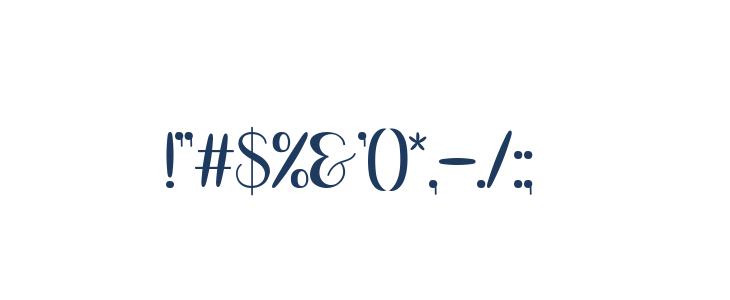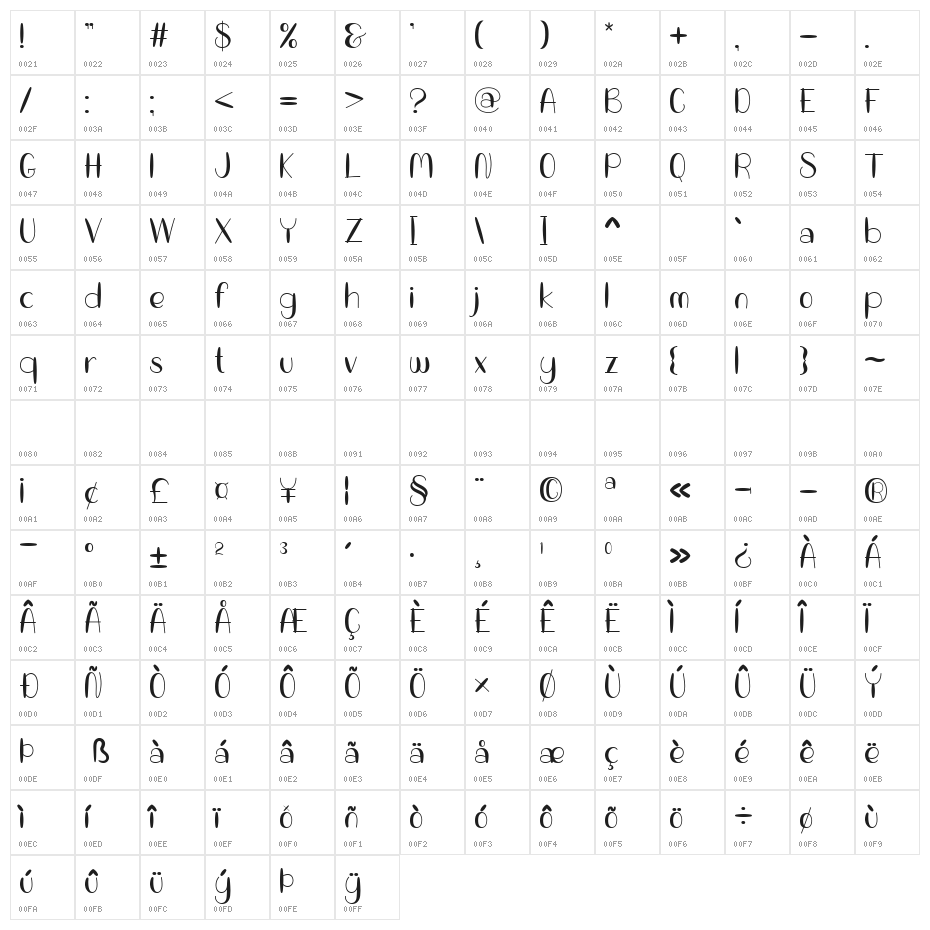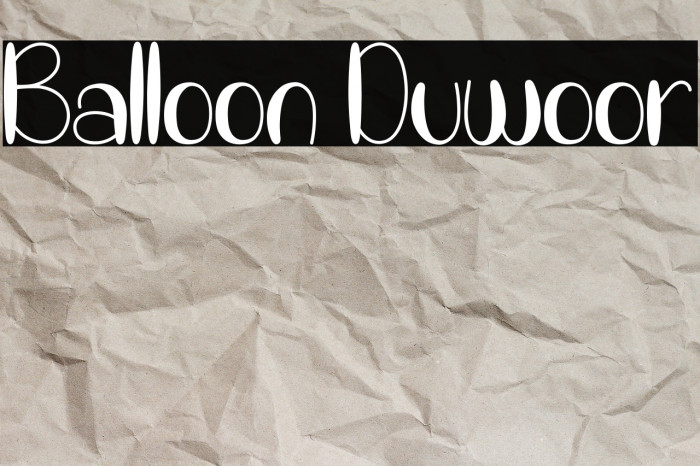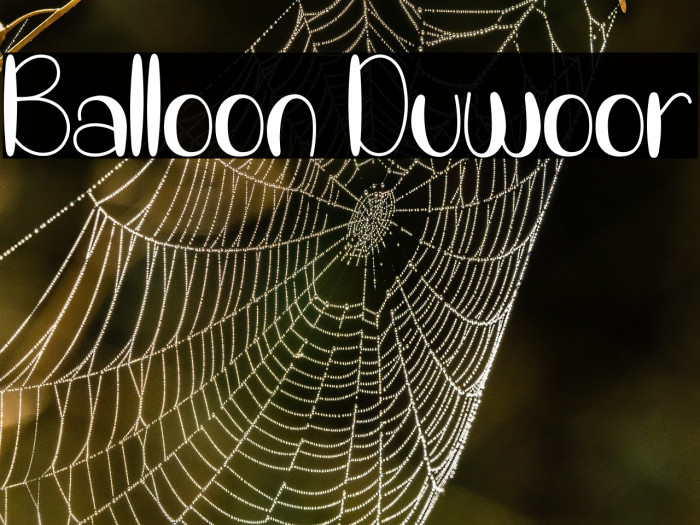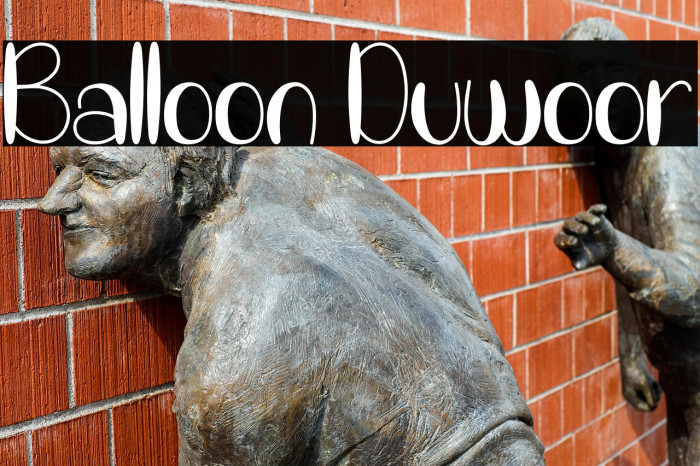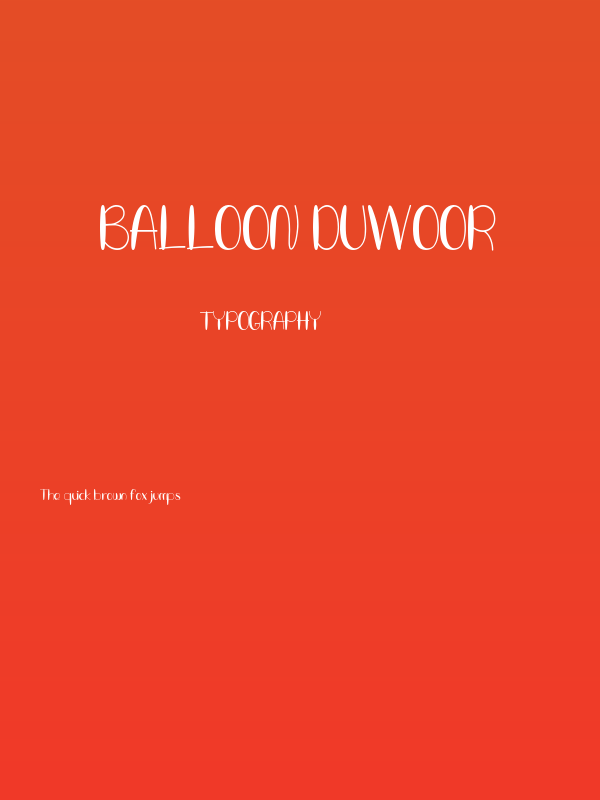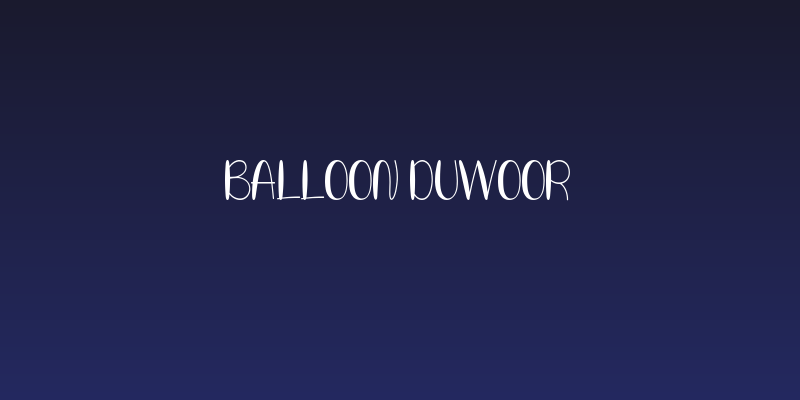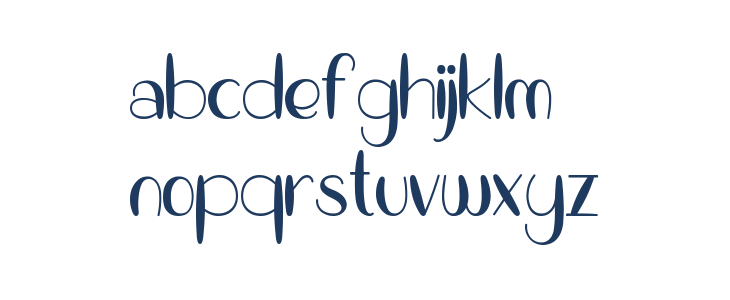
Balloon Duwoor Font
Balloon Duwoor Description
This playful and whimsical font features a unique blend of rounded and elongated letterforms, creating a sense of movement and fun. The uppercase letters are bold and slightly condensed, with a distinctive balloon-like appearance, while the lowercase letters maintain a consistent style with a touch of elegance. The font includes a full set of numerals and a variety of special characters, each designed with the same playful aesthetic. The overall design is modern and eye-catching, making it ideal for projects that require a touch of creativity and flair.
| Proposed Projects | Ideal for children's books, party invitations, playful branding, and creative posters. |